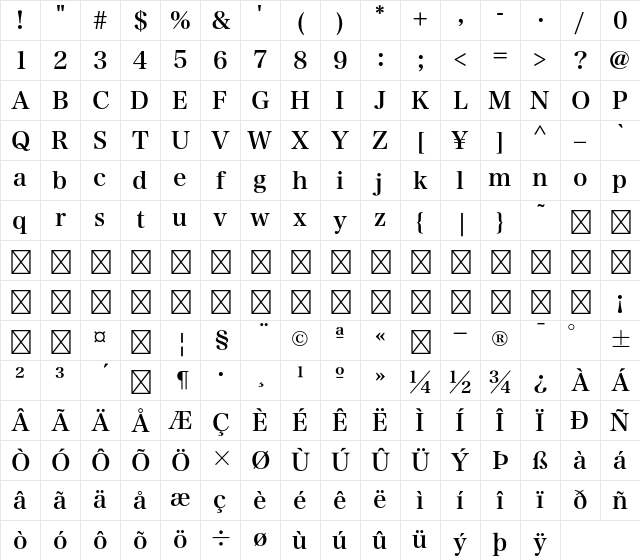
Hiragino Serif Upr W6
Style: W6
Foundry: Dainippon Screen Mfg. Co., Ltd.
Designer: JIYUKOBO Ltd.
Hiragino Serif Upr Family
Hiragino Serif Upr W6
Design Context for Hiragino Serif Upr
Hiragino Serif Upr carries the refined structure of traditional serif typography, with bracketed terminals and considered proportions that communicate credibility and craft.